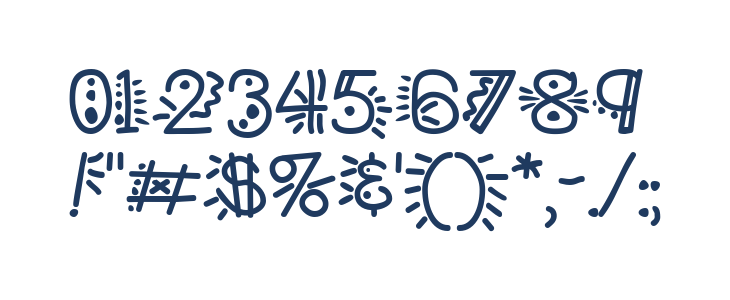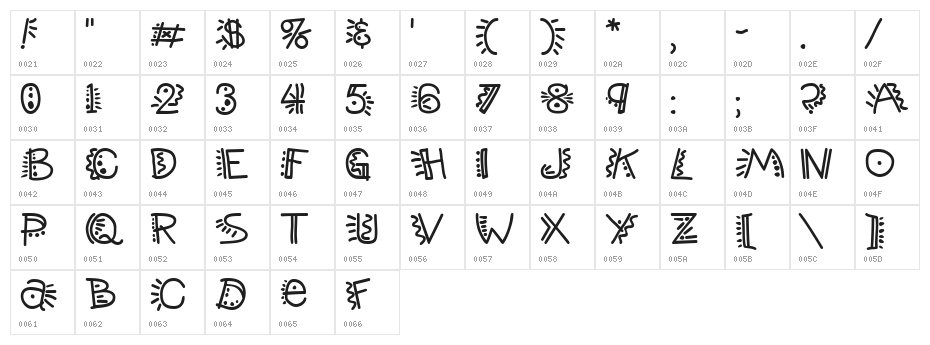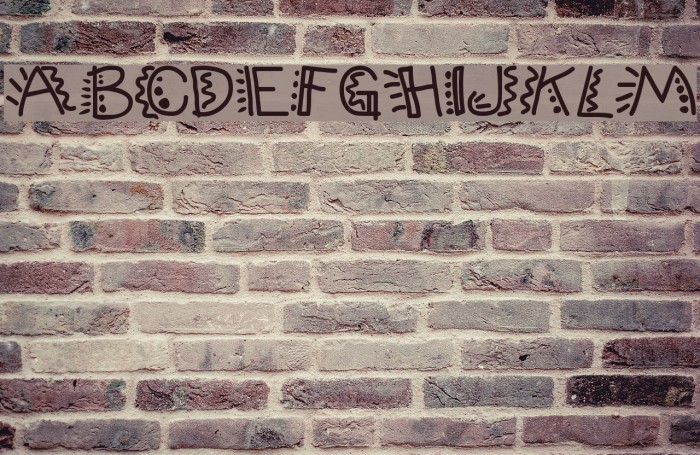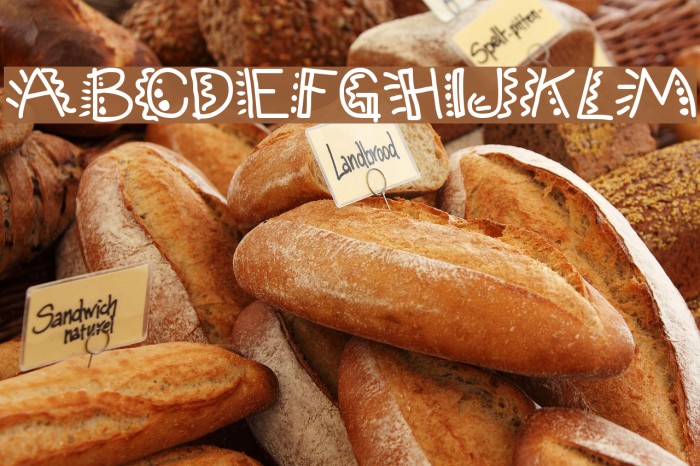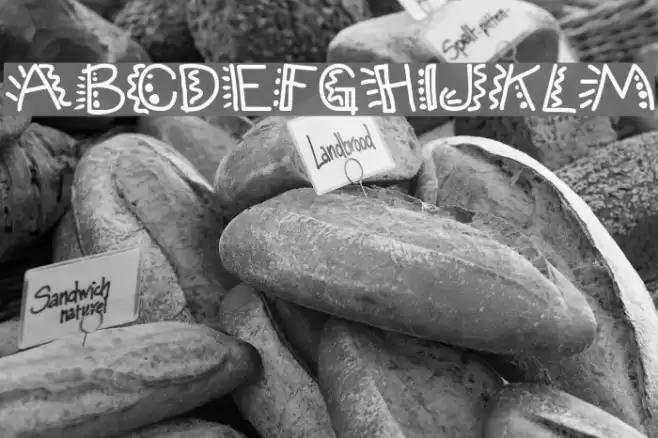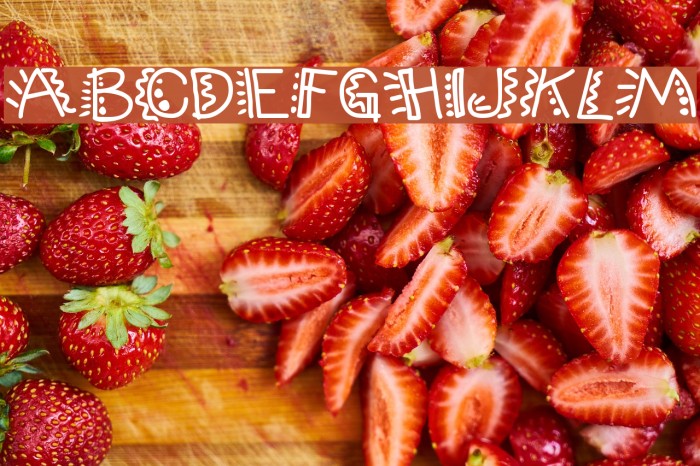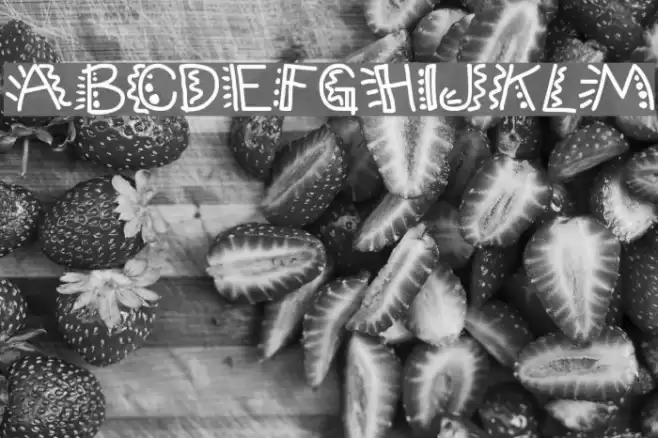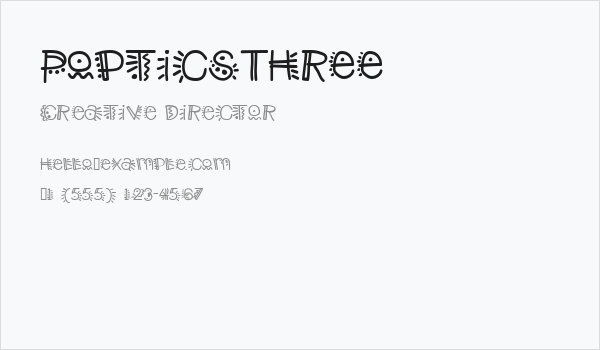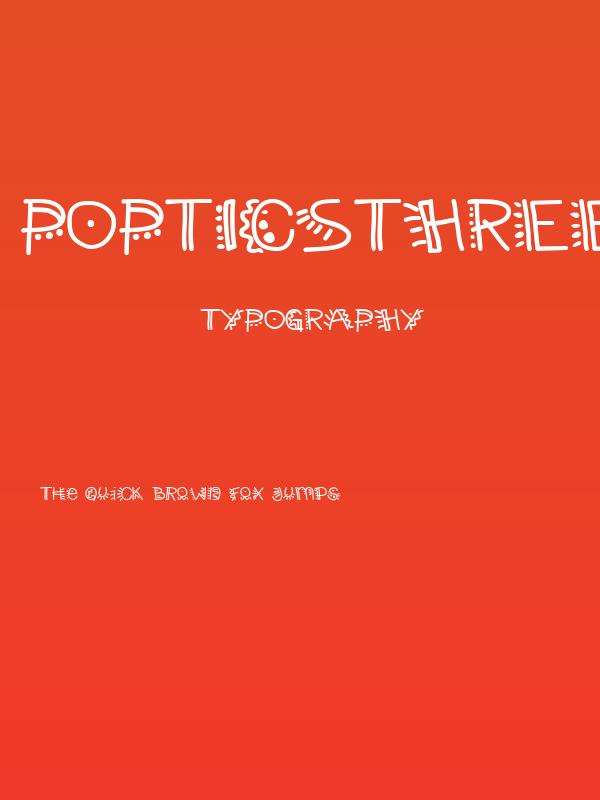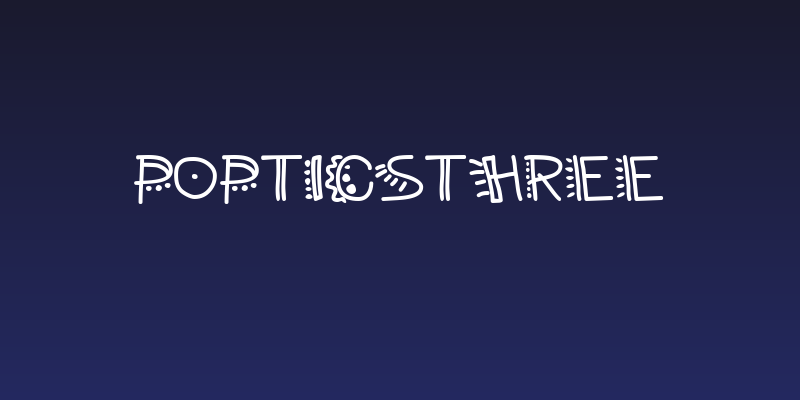
PopticsThree Font
PopticsThree Description
This font features a playful and whimsical design, characterized by bold, rounded letters adorned with decorative dots and lines. The uppercase and lowercase letters maintain a consistent style, with each character exhibiting unique embellishments that add a sense of fun and creativity. The numbers and special characters follow the same decorative theme, making the font suitable for projects that require a lively and engaging aesthetic. The overall design is eye-catching and ideal for capturing attention.
| Proposed Projects | Ideal for children's books, party invitations, playful branding, and creative posters. |